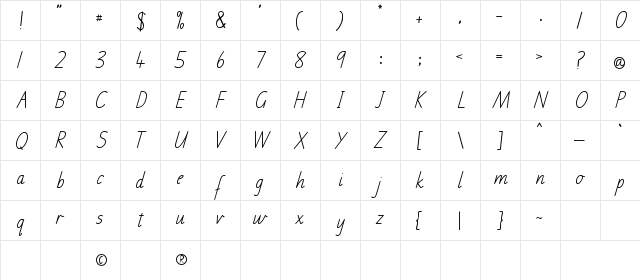
SA Regular Font Preview
SA Regular
SA Regular Font Details
Design Context for SA Typeface
SA is a composed and adaptable typeface that performs quietly and consistently across a wide range of design contexts.